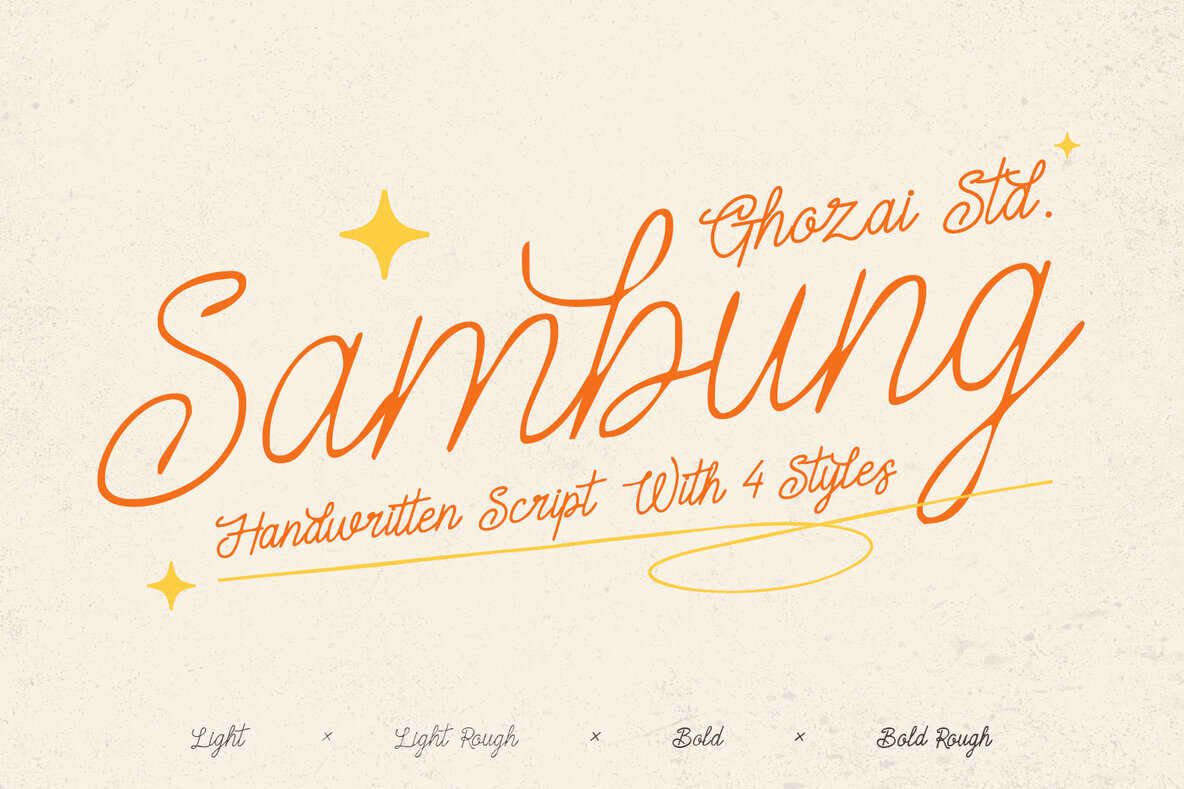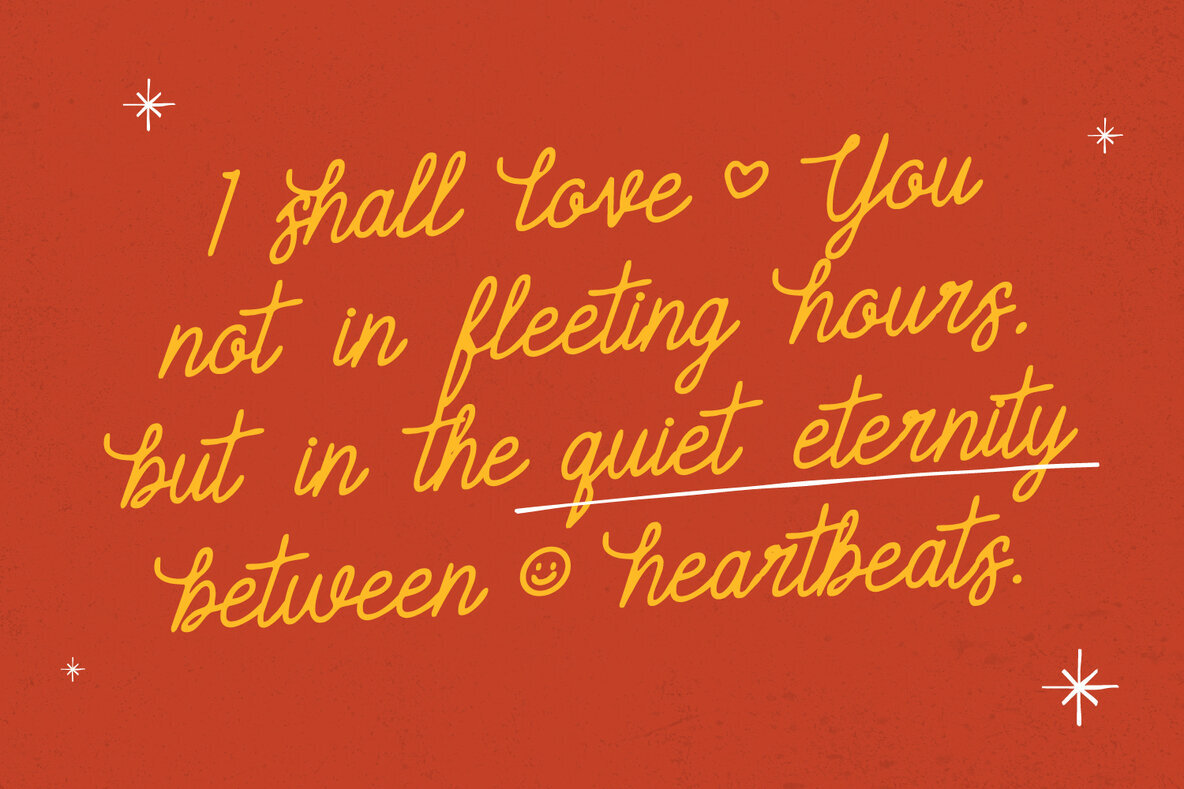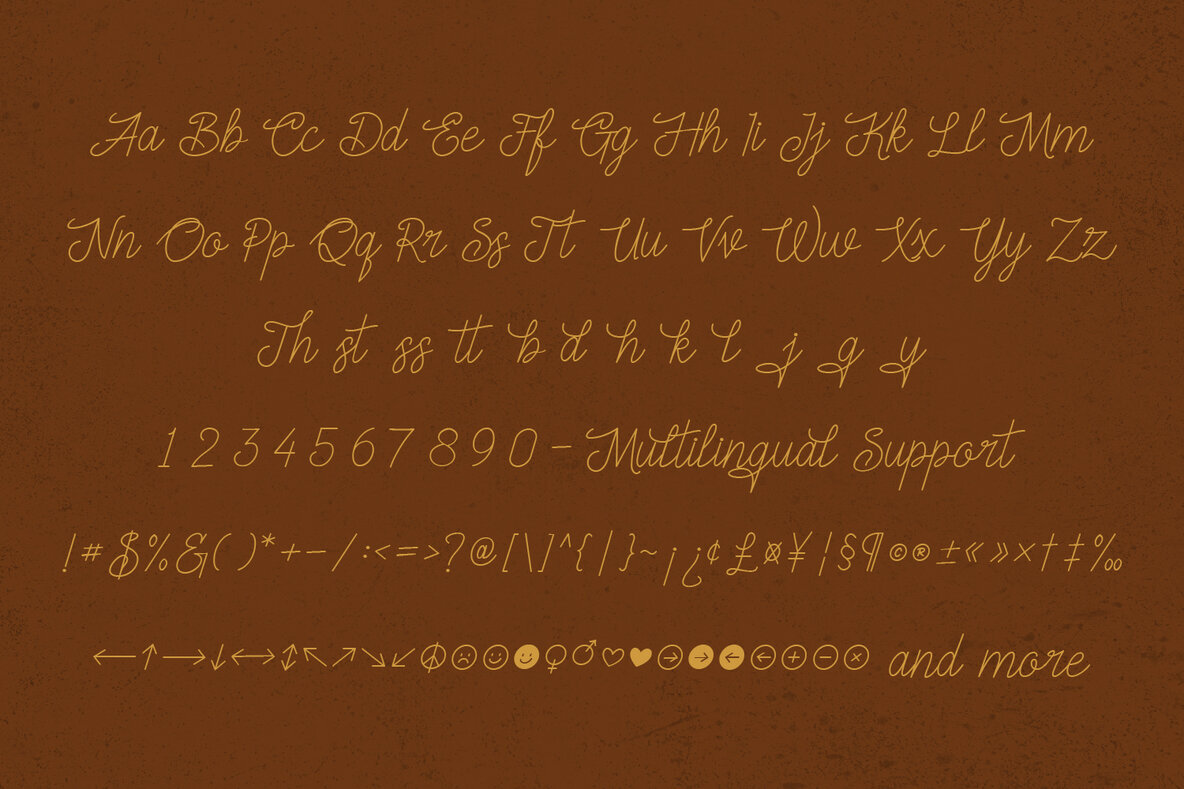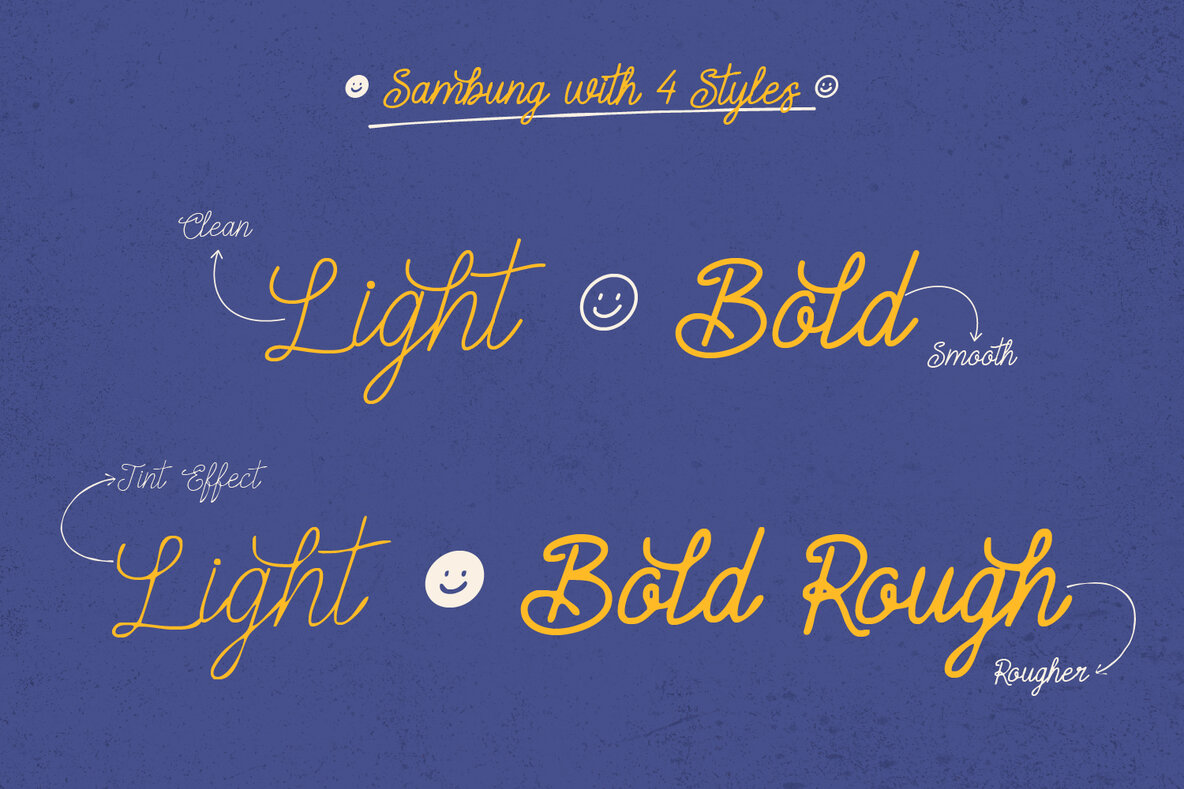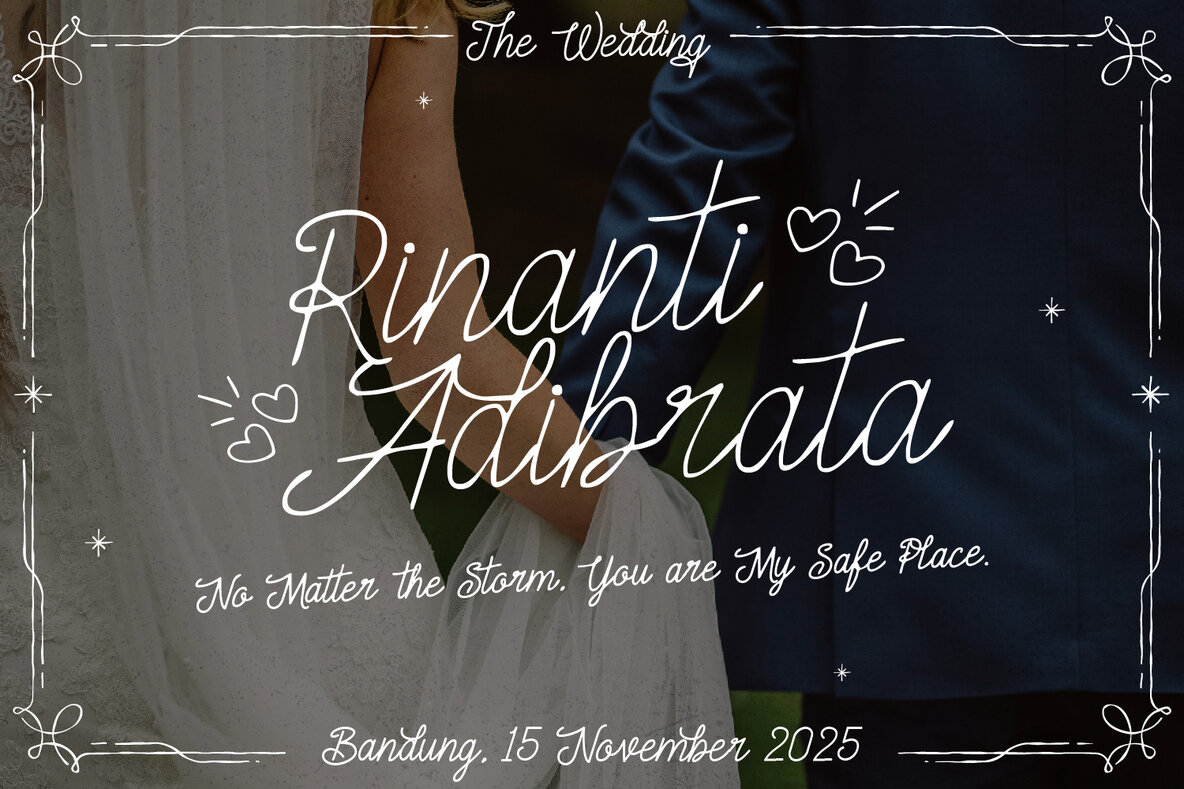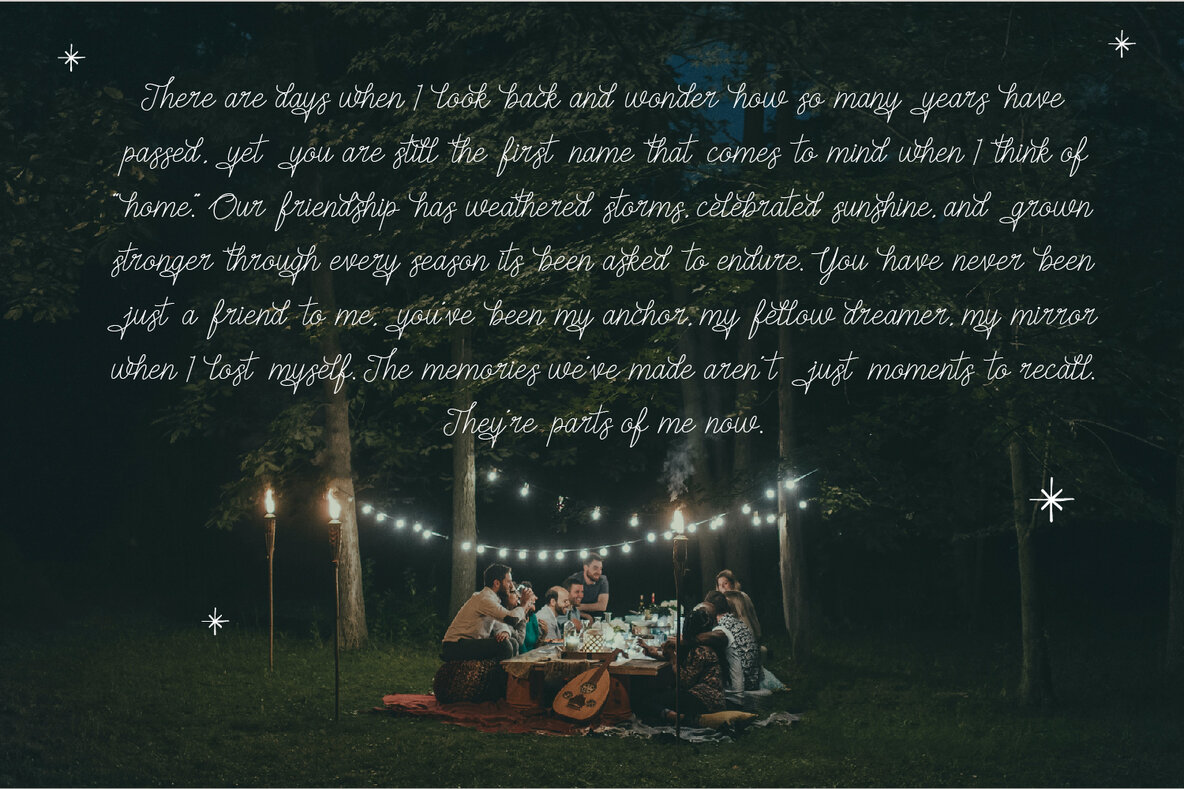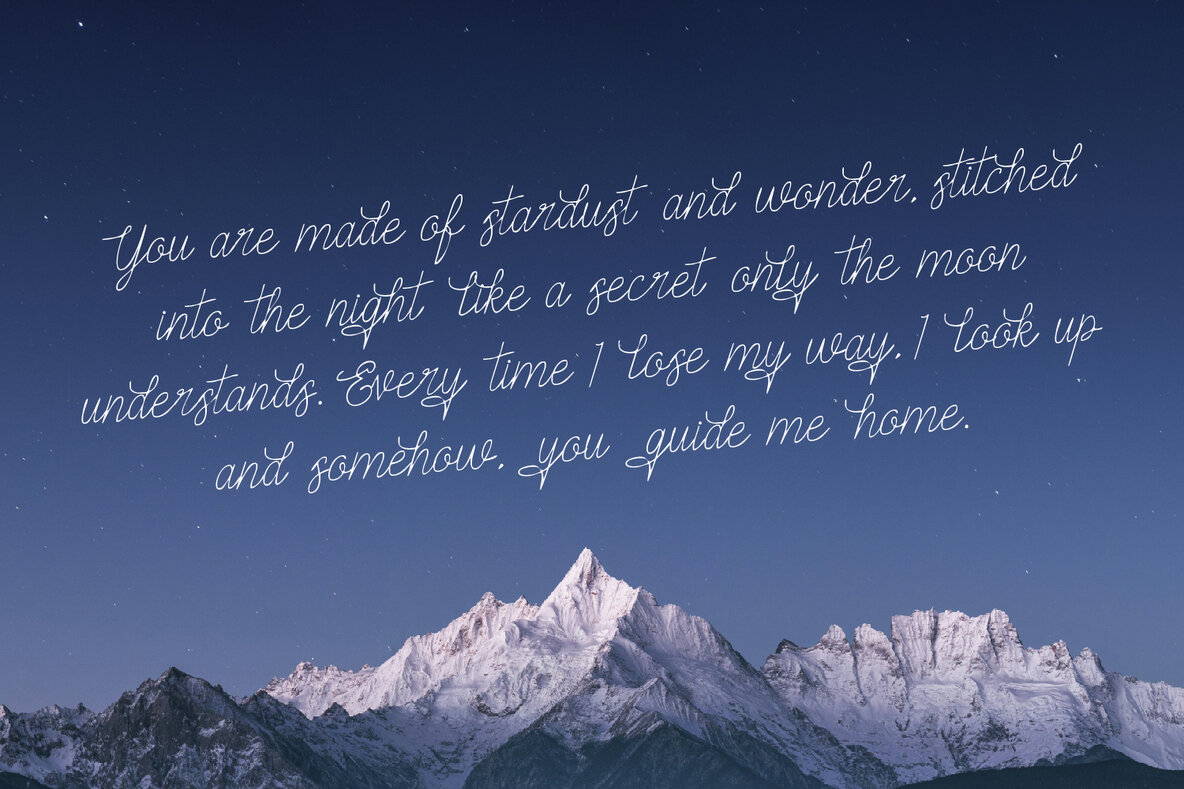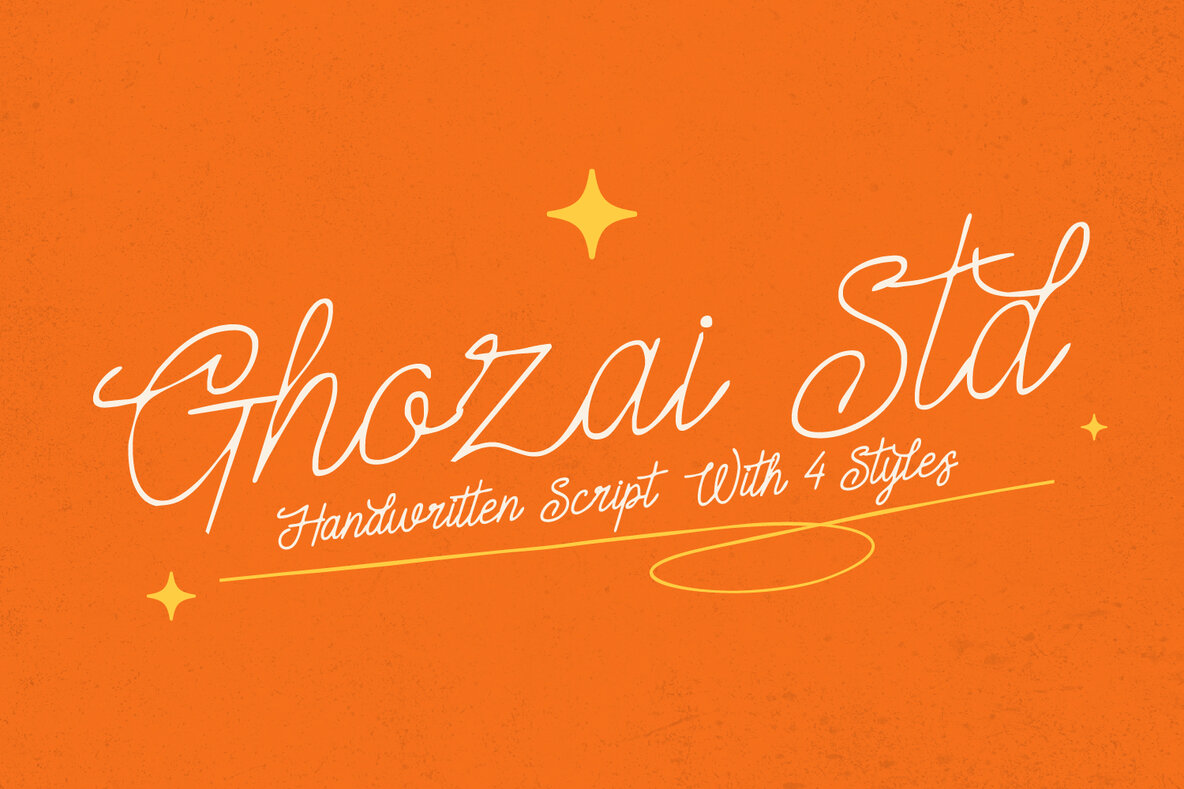
Sambung Font
Sambung is a handwritten script font that brings that warm, personal, and natural handmade vibe to your designs. Whether for something sweet and subtle or bold and textured. Sambung comes in four styles—Light, Bold, Clean, and Rough. Featuring a variety of ligatures and alternate stylistic sets, this font creates a natural, handwritten look that adds personality and flair to your designs. Sambung is the perfect choice when you need a bold and authentic handwritten aesthetic. The versatility of this font makes it suitable for both digital and print media. Perfect for everything from wedding invites and greeting cards to branding and apparel, this font adds that just-right touch of personality and charm.